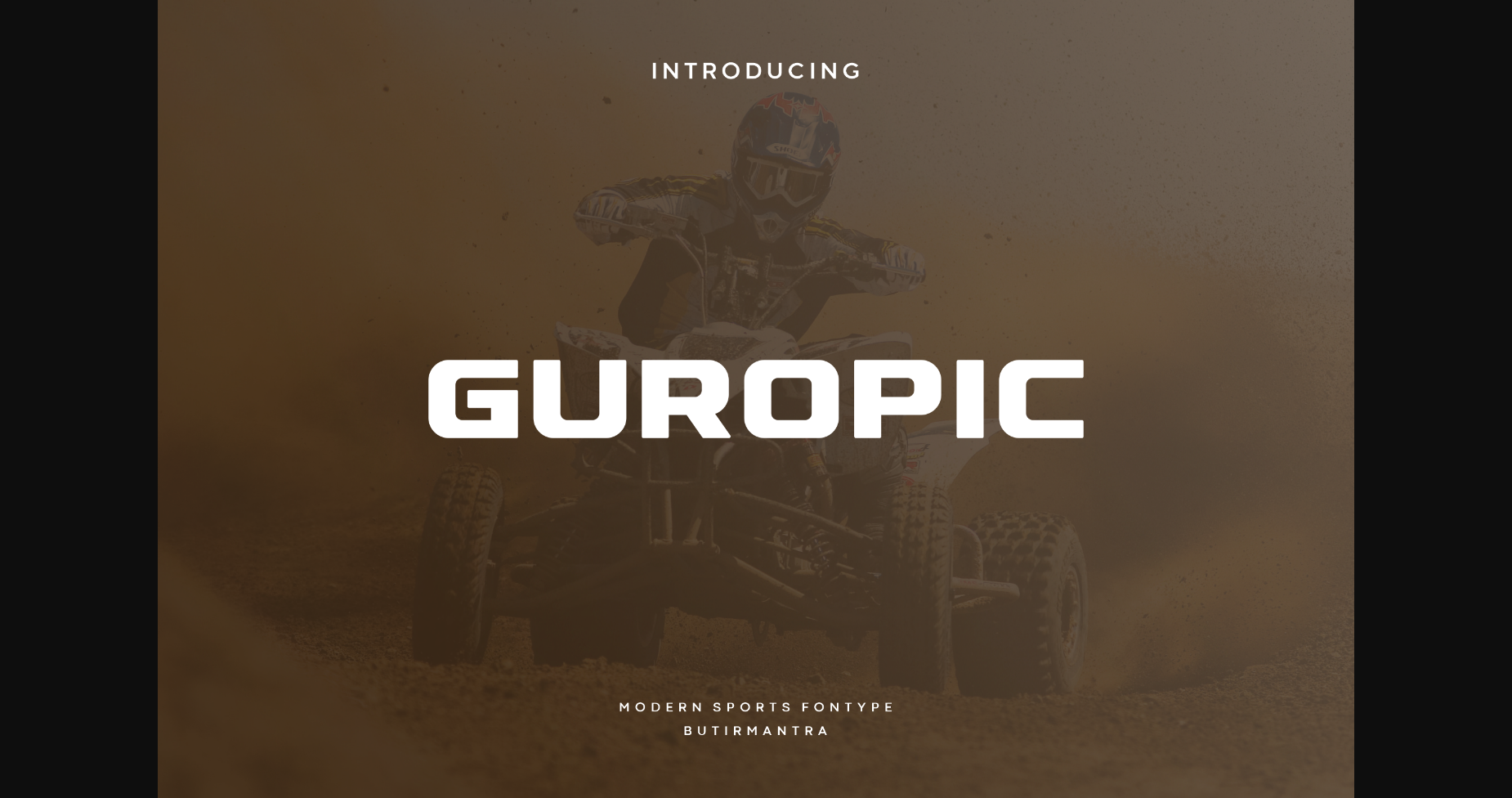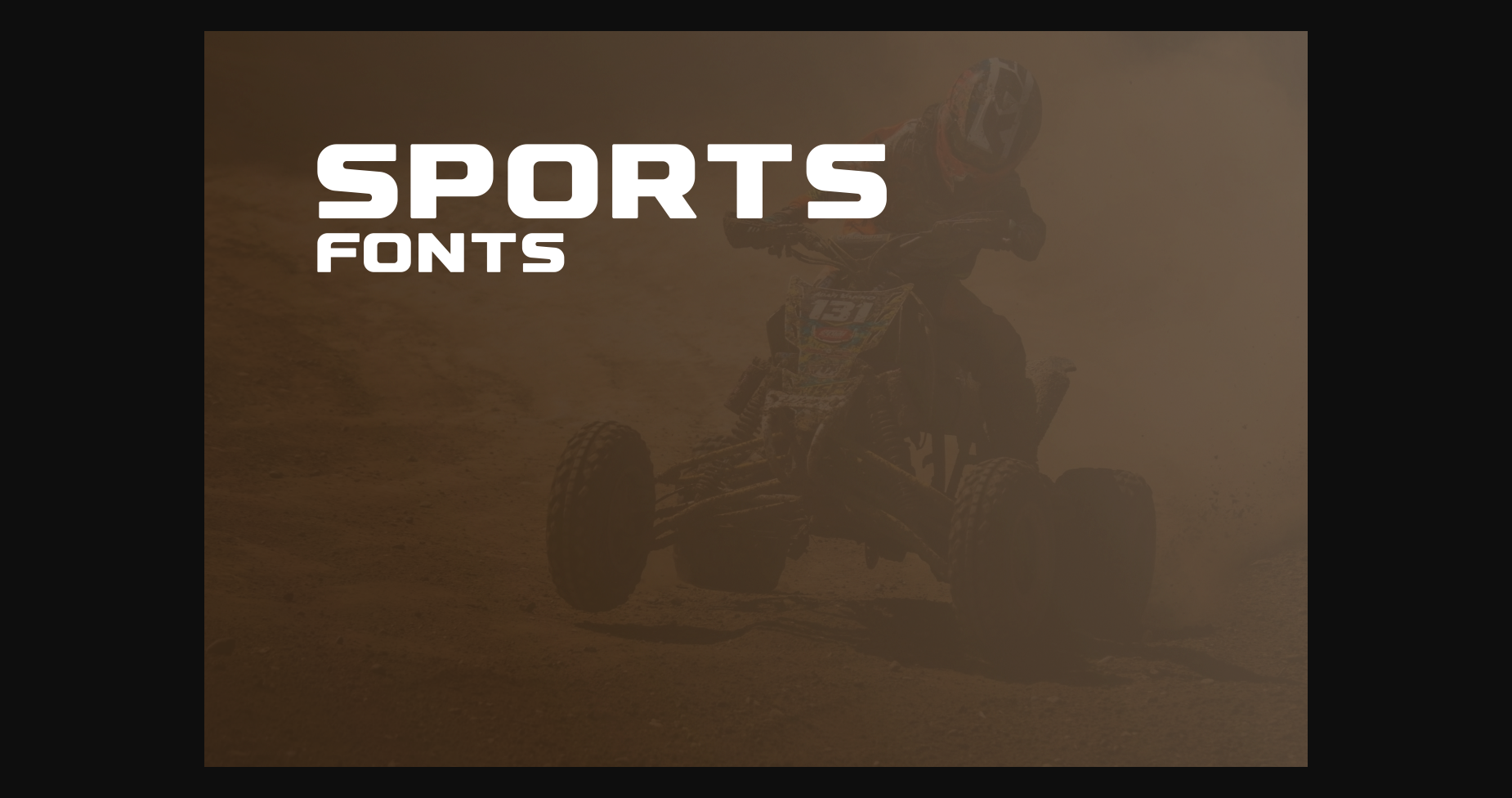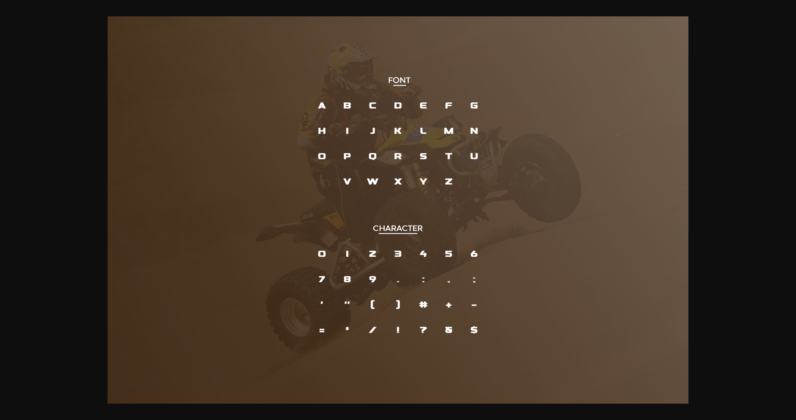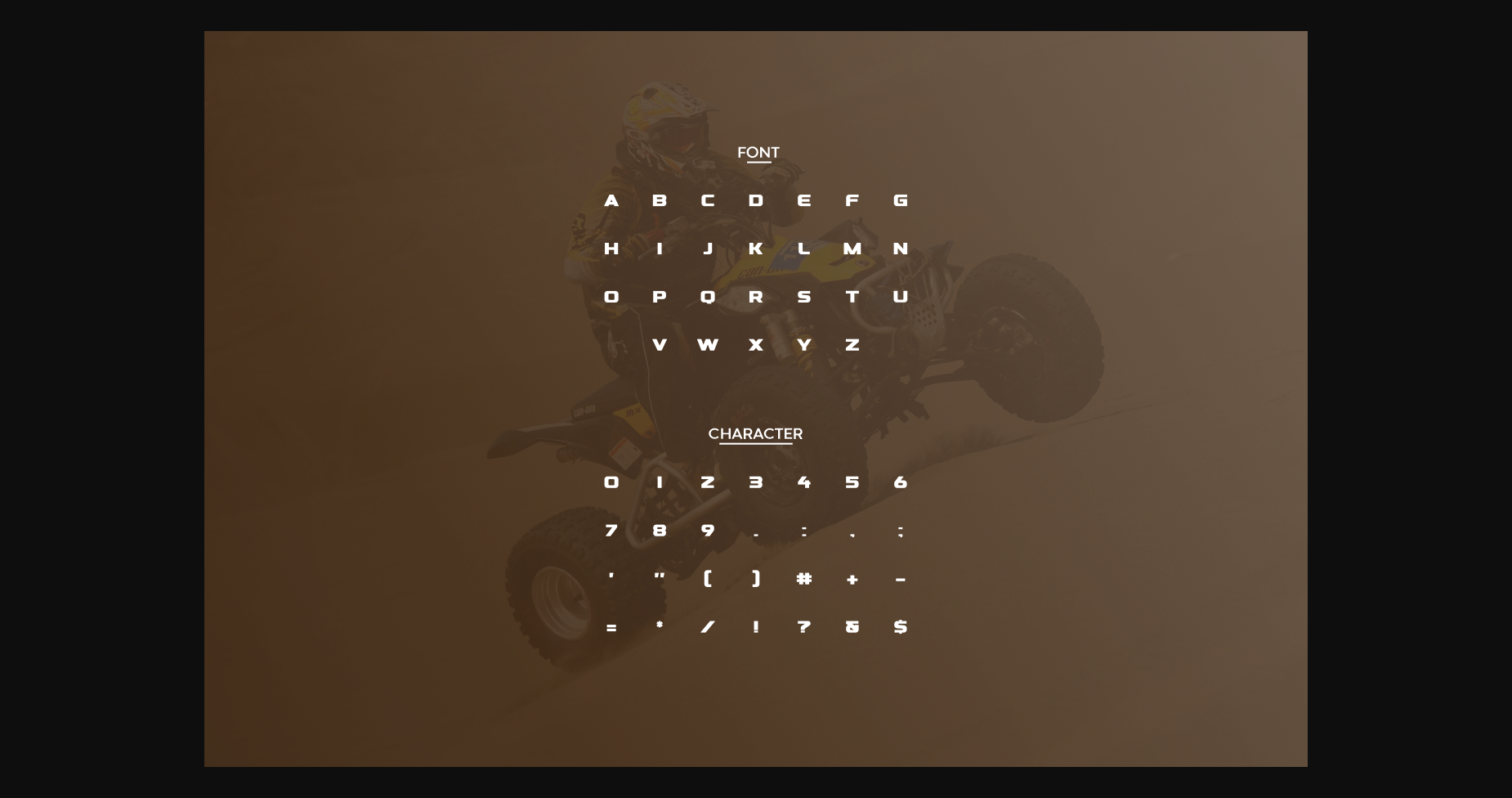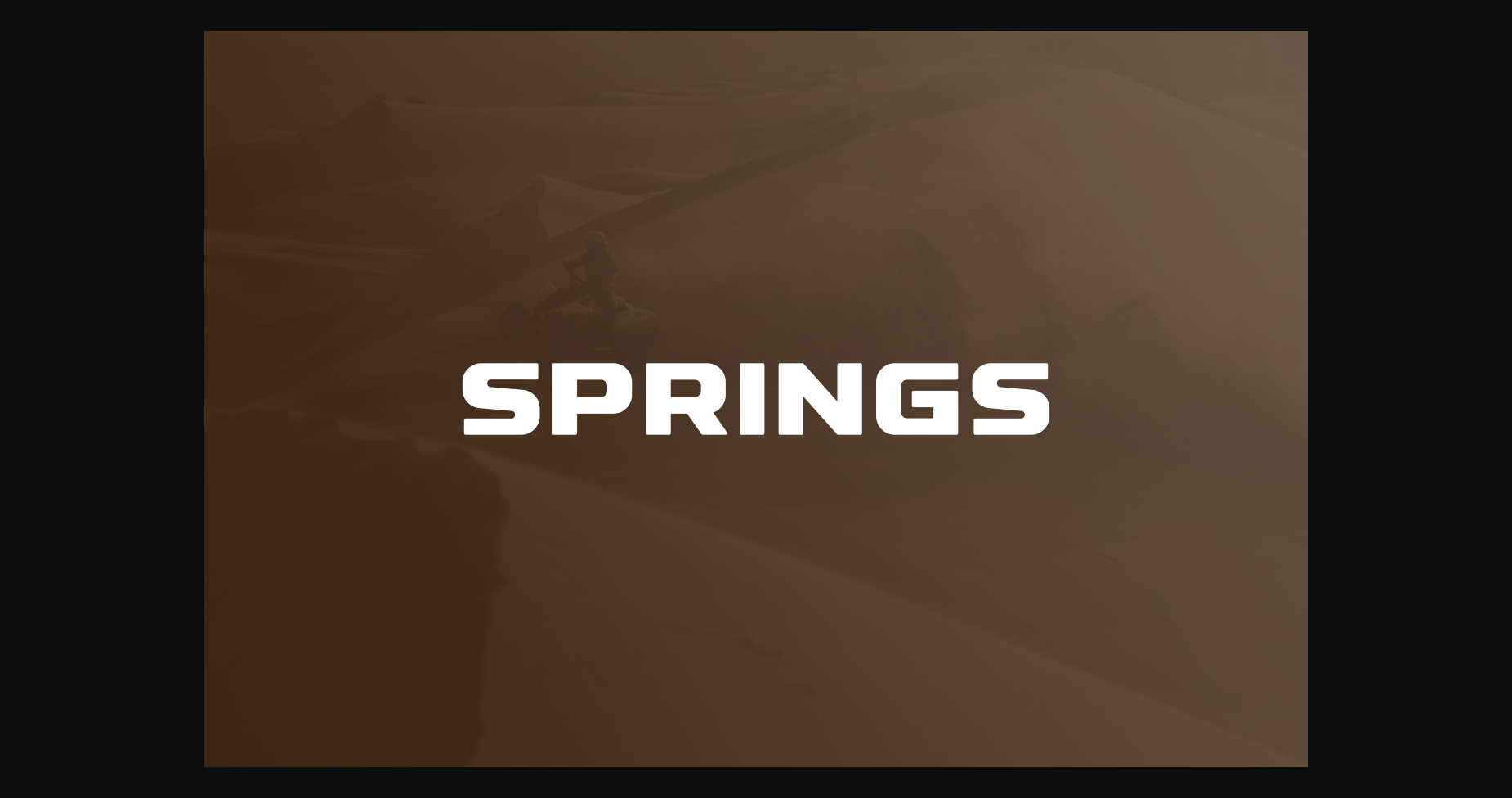
About Guropic Font
Guropic is a thick-lettered, modern sans-serif font. No matter the topic, this font will be an incredible asset to your fonts’ library, as it has the potential to elevate any creation.